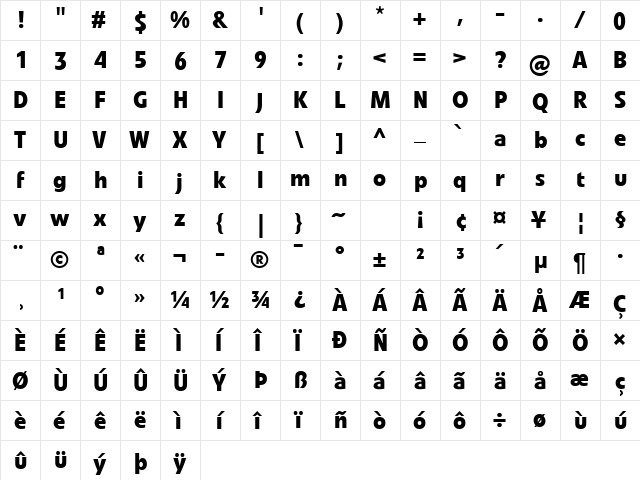
Veto Com Bold
| Foundry | Linotype GmbH |
| Designer | Marco Ganz |
Design Context for Veto Com Typeface
Veto Com offers clean, dependable letterforms without strong stylistic allegiance, making it a practical choice for designers who need flexibility. The heavy weight commands attention and anchors typographic hierarchies.